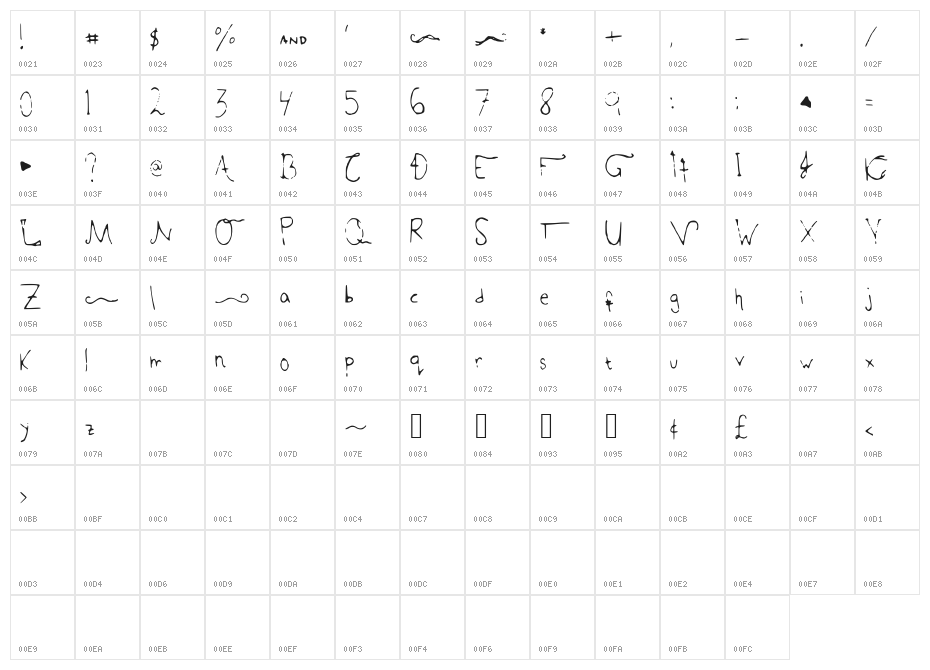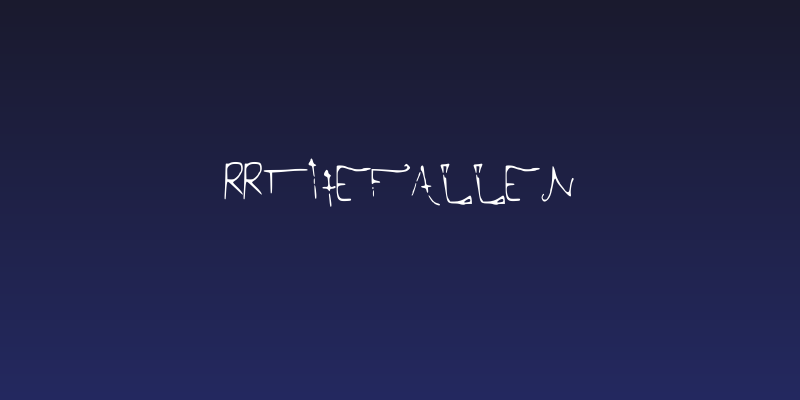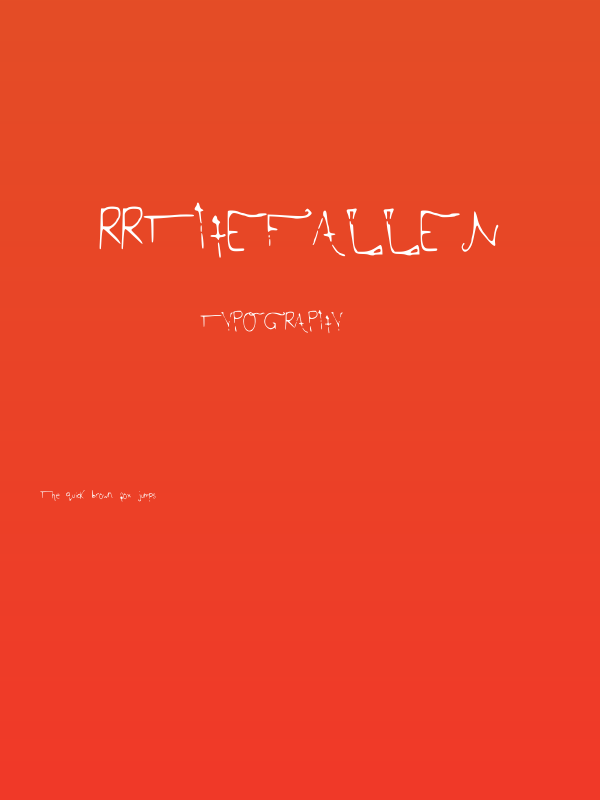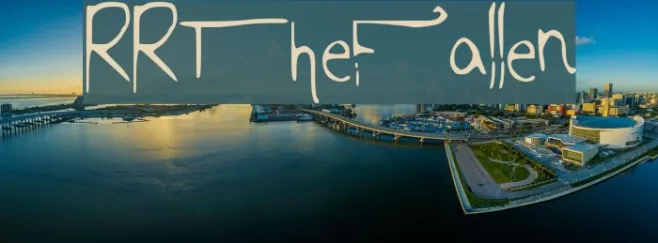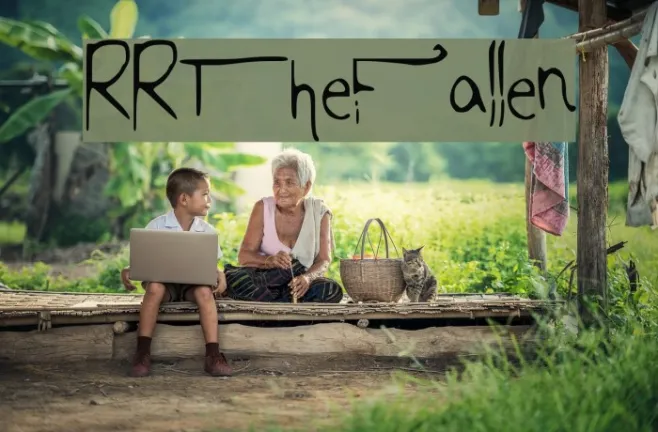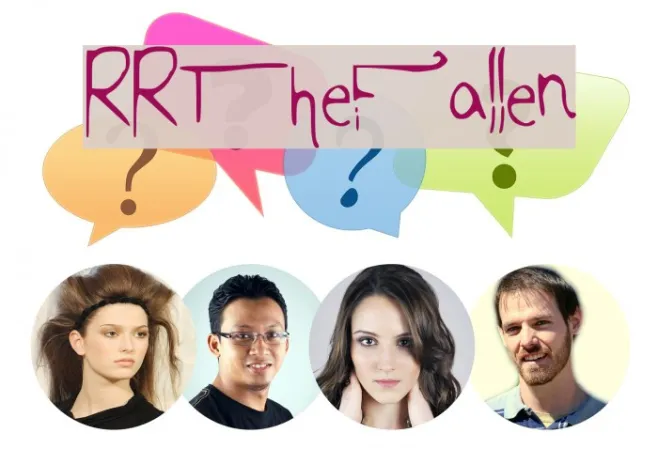
RRTheFallen Font
RRTheFallen Description
This font features a highly decorative and artistic style, characterized by its irregular and whimsical strokes. The letters have a hand-drawn appearance, with varying line thicknesses and unique embellishments that give each character a distinct personality. The uppercase letters are particularly elaborate, with some incorporating swirls and loops that extend beyond the typical letterform boundaries. The lowercase letters maintain a playful and creative aesthetic, while the numbers and special characters follow suit with their own quirky designs. This font exudes a sense of creativity and artistic flair, making it stand out in any design project.
RRTHEFALLEN UPPERCASE
RRTHEFALLEN LOWERCASE
RRTHEFALLEN OTHER CHARS
| Overall Style | Artistic, Whimsical |
| Proposed Projects | Ideal for artistic projects, creative branding, unique invitations, and eye-catching posters. |